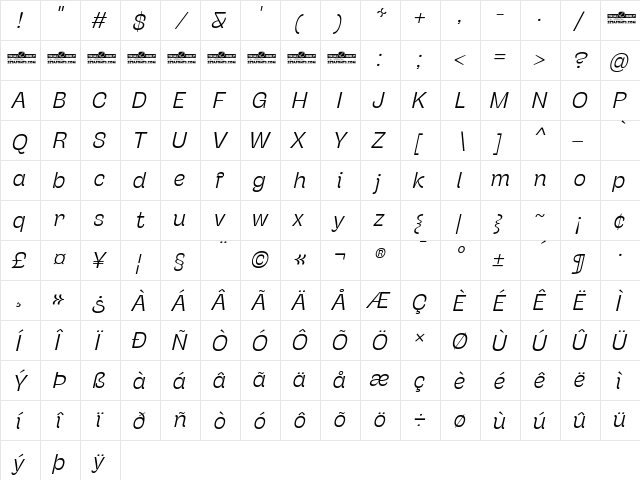
Stinger Trial Light Italic
| Foundry | Studio Kmzero & Zetafonts |
| Designer | Cosimo Lorenzo Pancini |
Design Context for Stinger Trial Typeface
Stinger Trial is a composed and adaptable typeface that performs quietly and consistently across a wide range of design contexts. The dynamic lean of this cut emphasises speed and emphasis in any layout. Its slender proportions lend an understated elegance to any composition.